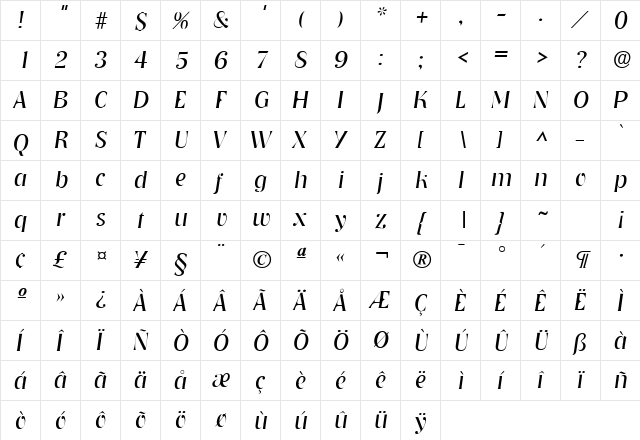
Tennessee Light SF Italic Font Preview
Design Context for Tennessee Light SF Typeface
Tennessee Light SF takes a measured approach to typography — its balanced proportions and neutral character make it a reliable workhorse for both digital and print work. The dynamic lean of this cut emphasises speed and emphasis in any layout. The delicate stroke weight brings airiness and refinement to layouts.
Pro Tip: Try Tennessee Light SF for annotation and caption copy alongside an upright companion — the contrast in angle creates a dynamic but ordered typographic system.